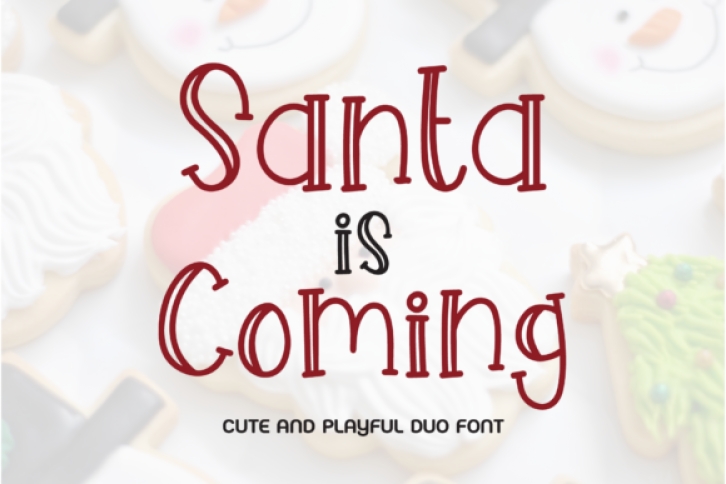
Santa is Coming is a friendly handwritten font. Playful and a little bit quirky, this font is the perfect fit for your social media posts, posters, cute greeting cards and more.